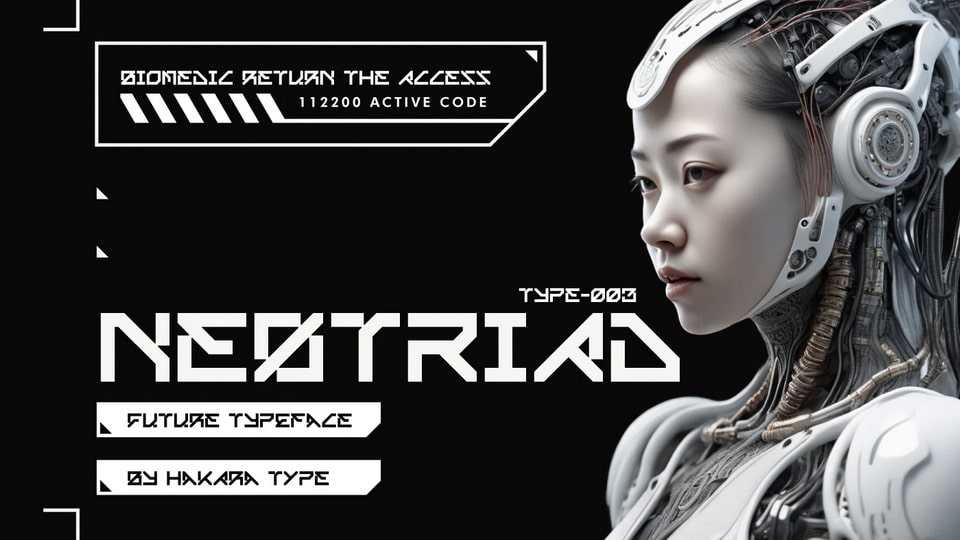
Download NeoTriad font, a futuristic typeface that blends elements of advanced technology with a sharp and precise aesthetic. Featuring triangular cutouts within each character, NeoTriad exudes a strong modern impression, while the pointed tips on each letter add a contemporary edge.
Designer: Hakara Type